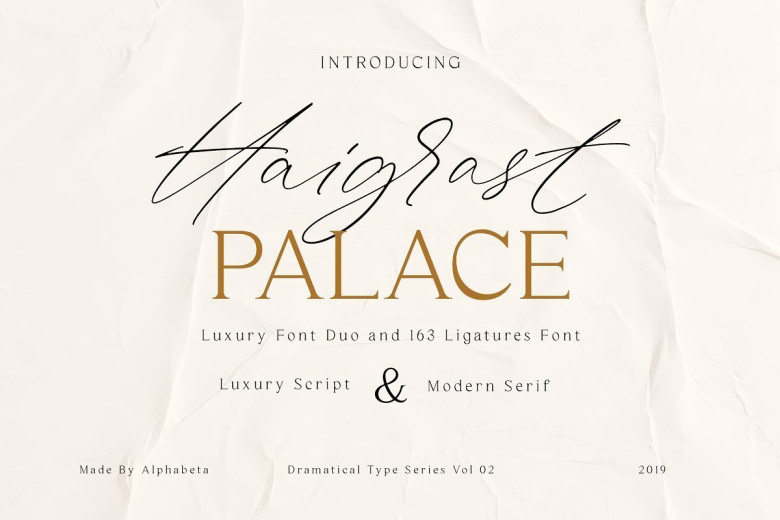
Haigrast Dramatical Font Collection
Haigrast Dramatical Font Collection Volume 02, Haigrast inspired by a new modern calligraphy concept. Luxury script and modern serif is good combination to make your design look so dramatic. I made this one with dramatical touch to give the exclusive quality. I also give contemporary touch to renewing the typographic style to simplify design.